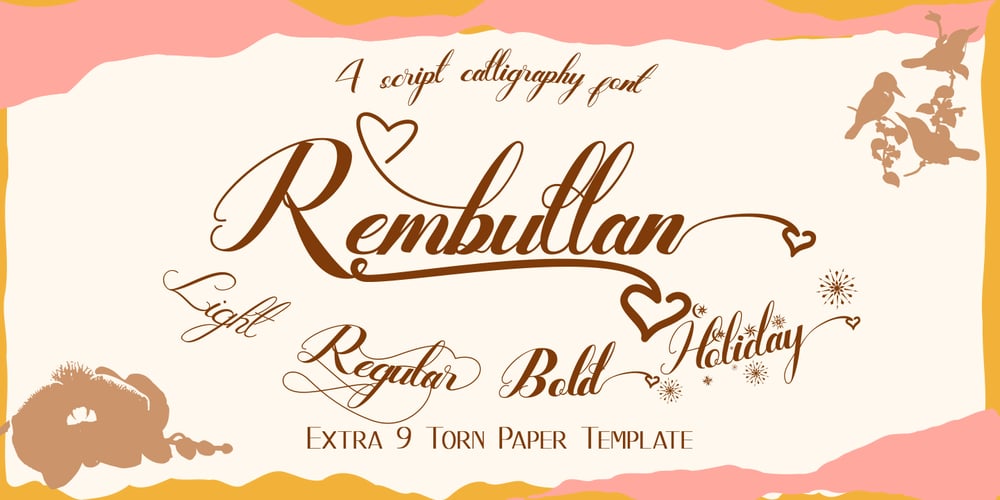
Rembullan Font Family was designed by Syukur Setiyadi and published by SSI.Scraps. Rembullan contains 4 styles and family package options. The Rembullan family font is a beautiful script calligraphy. It has so many alternative characters in every style. It will change your design to be prominent and attractive. In Holiday style you will find a unique glyph that matches with cheer and joyful design. Happiness is Rembullan. There is also a beautiful torn paper template as a bonus. Download the paper template here.